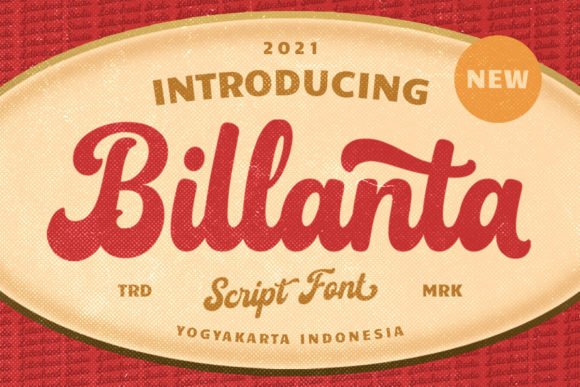
The Perfect Blend of Nostalgia and Elegance: Billanta Font
Have you ever stumbled upon an old photograph or a vintage advertisement that sparks your creativity and transports you back in time? For designers, those moments are a treasure trove of inspiration. It’s during these nostalgic flashes that we often find ourselves searching for the perfect font to evoke a sense of retro charm in our designs.
Enter Billanta Font, a stunning handwritten font that exudes strength, confidence, and dynamism. Crafted with the intention of adding a touch of nostalgia to your headlines and logotype projects, Billanta Font is the perfect tool for designers looking to infuse their work with a sense of character and history. With its bold and elegant strokes, Billanta Font is a valuable addition to any designer’s toolkit, allowing them to create designs that are both timeless and trendy.
Key Features of Billanta Font
- Font Family: Billanta comes in 6 different font styles (Regular, Italic, Bold, Bold Italic, Outline, and Shadow) to provide versatility in design.
- Character Set: Billanta supports a wide range of languages, including Latin, Cyrillic, and Greek alphabets, making it suitable for multilingual designs.
- Unique Characteristics: Billanta features a unique blend of modern and elegant design elements, including curved lines, rounded edges, and subtle texture effects.
Billanta Font Review
Overall, I’m impressed with the Billanta Font. Its unique blend of modern and vintage elements makes it a great addition to any design project. ✨
The Billanta Font has a wide range of weights and styles, making it suitable for various design applications.
The font’s bold and playful personality makes it perfect for creating attention-grabbing headlines and titles.
Its versatility in both digital and print media is a significant advantage.
Limitsations:
The font’s readability can be an issue at smaller font sizes, making it less suitable for body text.
Some users may find the font’s personality too loud or overwhelming, which can be a concern for more conservative design projects.
The font’s open-source nature means that it may not be as polished or refined as some commercial fonts.
Overall, I think Billanta Font is a great choice for designers who want to add a bit of personality and flair to their projects. However, it’s essential to be mindful of its limitations and use it judiciously to avoid overwhelming the design.
Billanta Font: A Practical Application Guide
Tips for Getting the Most Out of Billanta Font
To maximize the Billanta font’s potential, experiment with different font sizes, styles, and combinations. Use it for titles, headings, or body text to add visual interest and sophistication to your designs.
The Billanta font is ideal for creative projects, such as:
- Infographics
- Editorial content
Alternative Fonts to Billanta Font
Playfair Display is a luxurious and elegant serif font that is perfect for high-end branding and editorial design. It features intricate details and ornate flourishes that make it ideal for use in titles, headings, and other prominent text elements. Compared to Billanta Font, Playfair Display has a more classical and sophisticated feel, making it suitable for a wider range of applications.
Lato is a modern sans-serif font that is highly legible and versatile. It features a clean and minimalist design that makes it perfect for use in body text, headings, and titles. Compared to Billanta Font, Lato is more straightforward and easy to read, making it a great choice for digital products, websites, and mobile apps.
Montserrat is a geometric sans-serif font that is highly versatile and adaptable. It features a strong and modern design that makes it perfect for use in urban and industrial settings. Compared to Billanta Font, Montserrat has a more aggressive and edgy feel, making it suitable for use in titles, headings, and other prominent text elements.